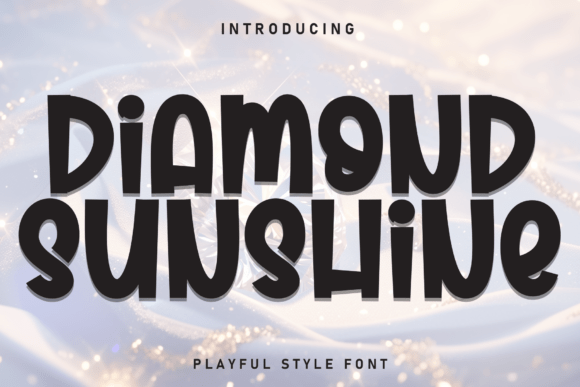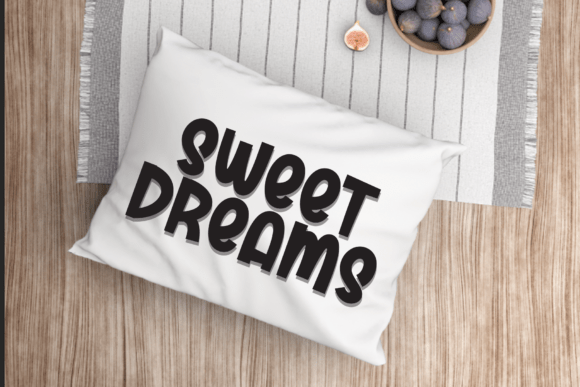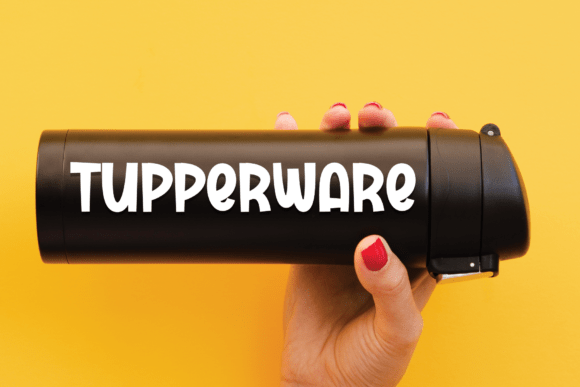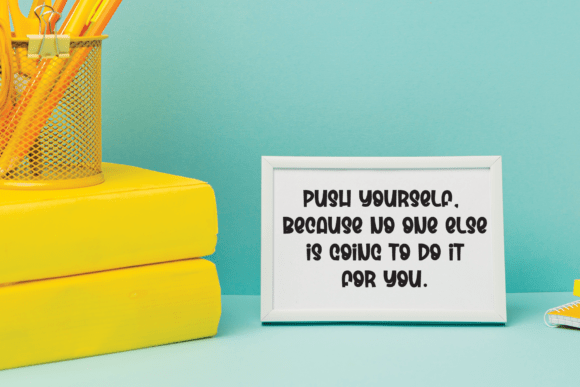
Diamond Sunshine Font
About the Diamond Sunshine Font
Unleash your creativity with Diamond Sunshine Font, a versatile font perfect for a wide range of applications. Diamond Sunshine is a cheerful and bouncy handwritten font packed with personality! Its bold letters and smooth curves bring a fun, casual energy that’s perfect for classroom posters, kids’ projects, stickers, greeting cards, and anything that needs a splash of joy. With its doodle-like charm and easy readability, this font adds a friendly and whimsical touch to every design.
Diamond Sunshine’s playful energy makes it ideal for projects targeting a young audience or needing a lighthearted feel. It excels in headlines, short text blocks on packaging, and social media graphics. However, its informal style is less suitable for body text, lengthy documents, or applications requiring high readability at small sizes like UI elements.
Consider pairing Diamond Sunshine with a clean sans-serif like Open Sans for a balanced contrast, or a playful script font such as Pacifico for a more whimsical effect. A geometric sans-serif could also work well, providing a modern counterpoint to its hand-drawn charm.
The font’s overall personality is friendly and approachable, conveying a sense of fun and optimism. Its bold strokes and rounded forms create a cheerful, almost childlike aesthetic, making it a strong choice for brands focusing on youth, creativity, or happiness.